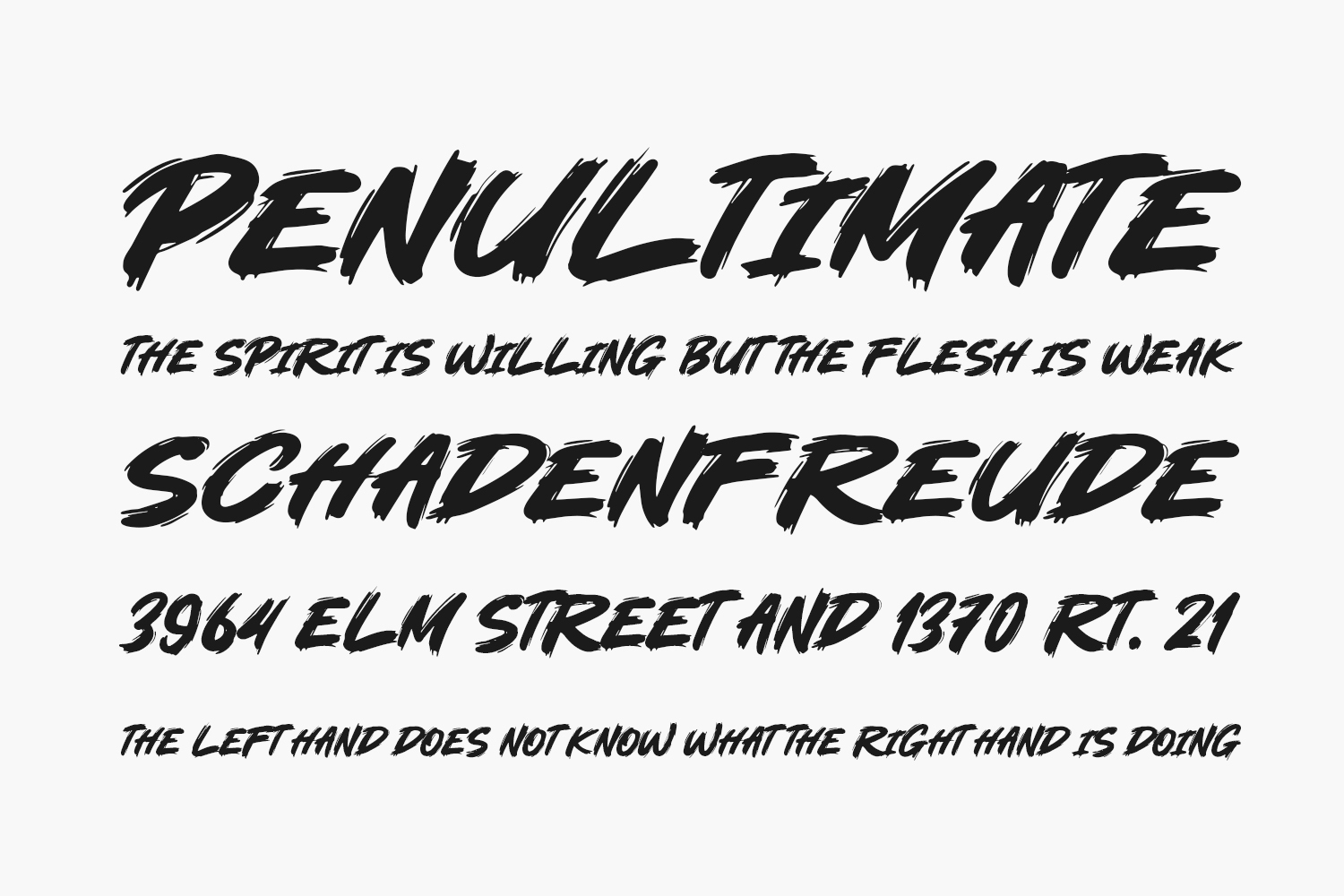
Under Station Free Font a contemporary, bold brush font ideal for posters, logos, magazines, book covers, banners, and more! Elevate your designs with this unique handcrafted typeface that effortlessly complements a wide range of projects. Incorporate it into your creative concepts and witness the remarkable impact it adds, making your creations truly shine. Under Station Free Font is free for personal use only. Please purchase the full version for commercial use.